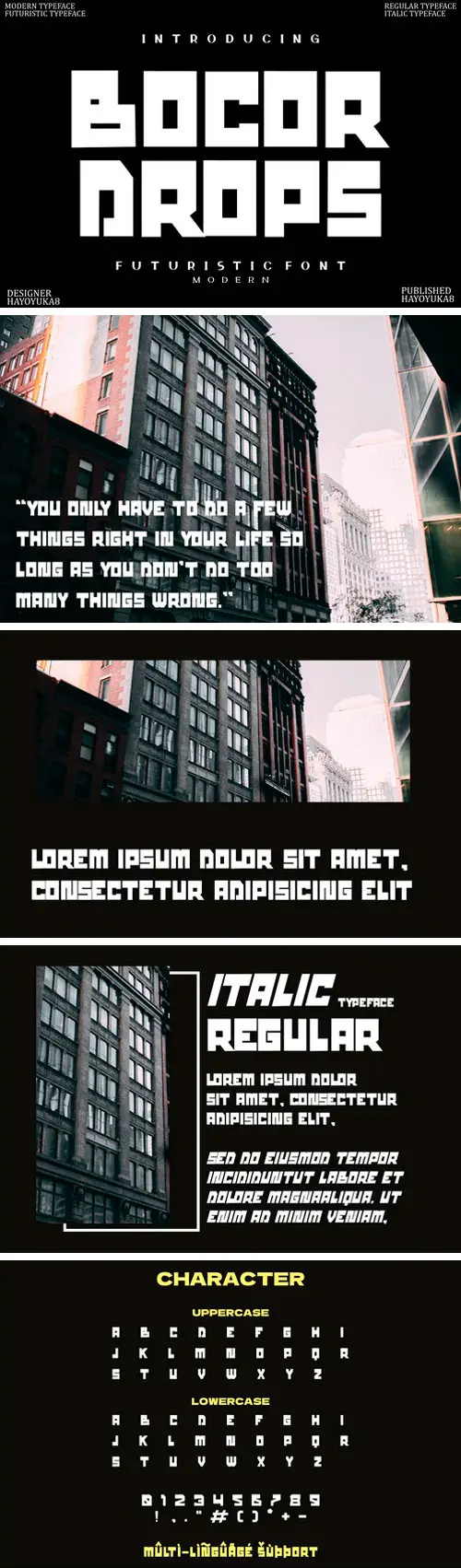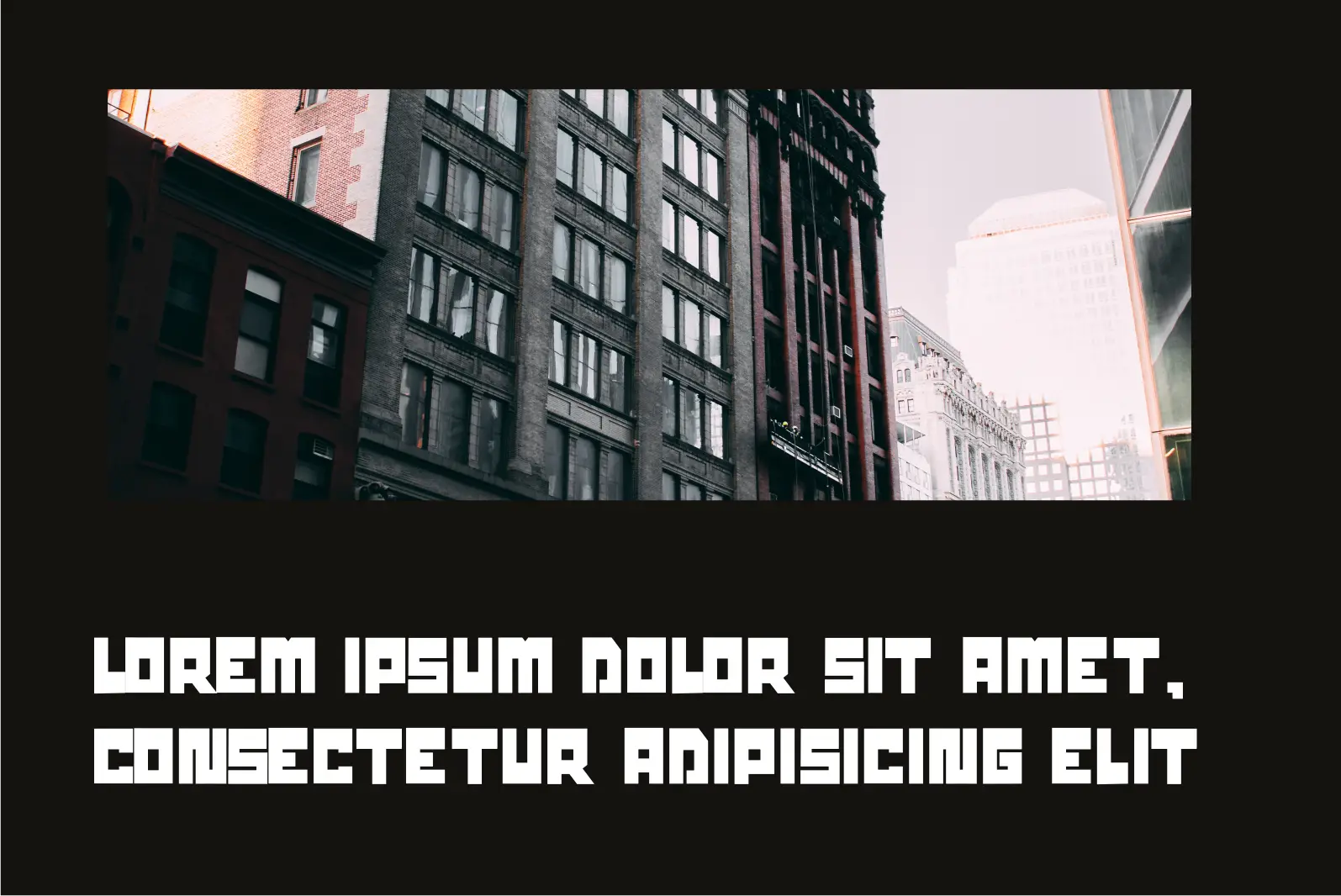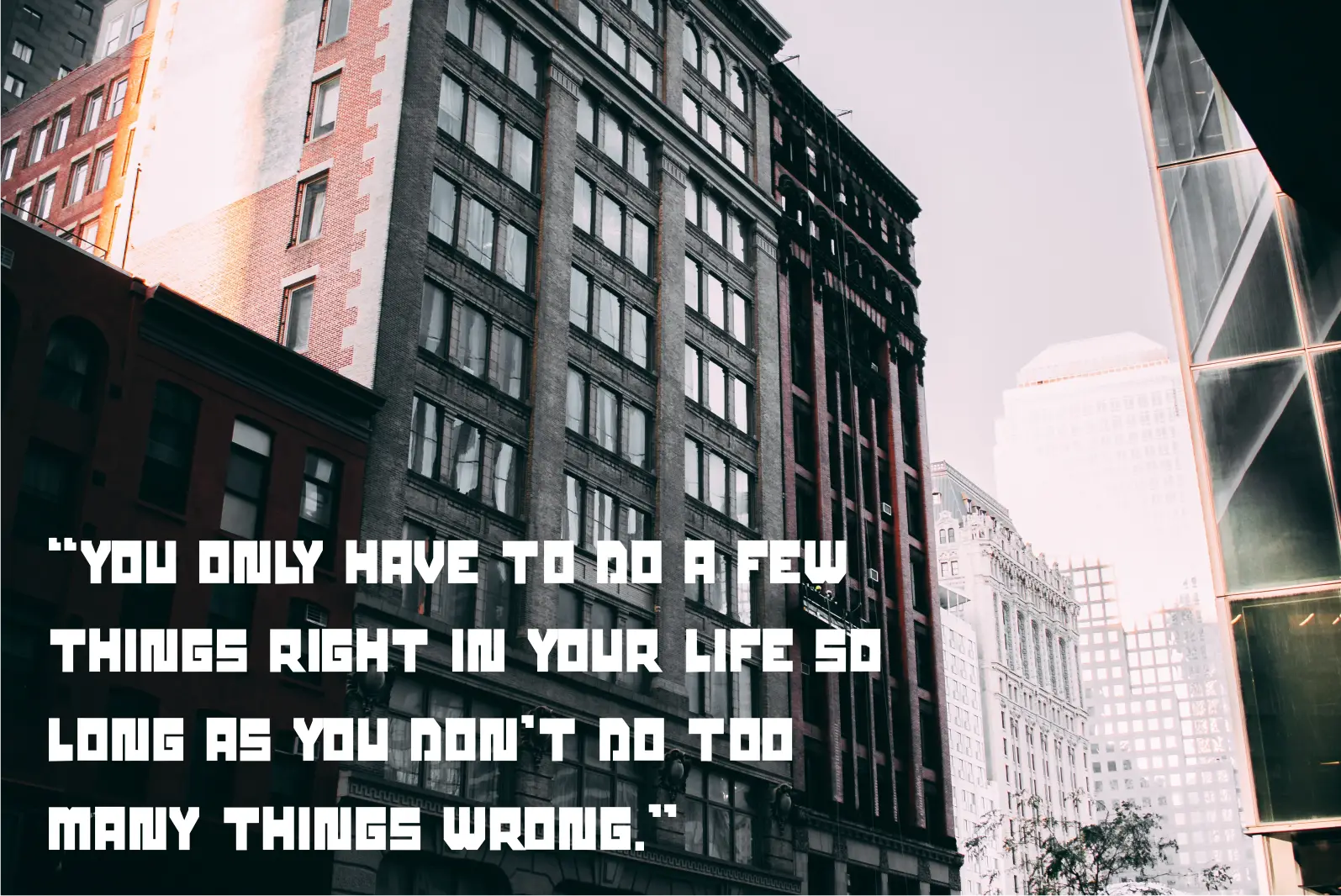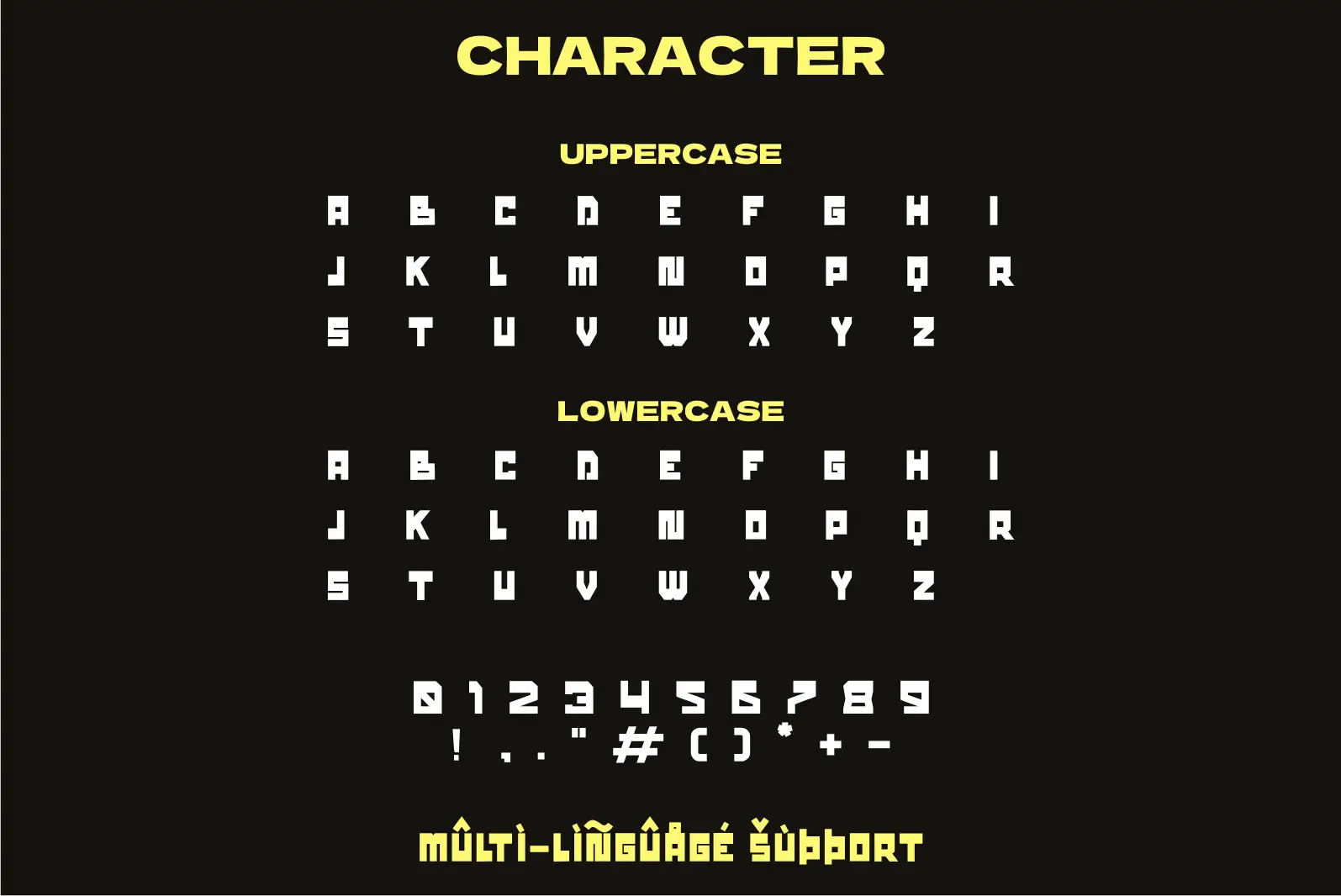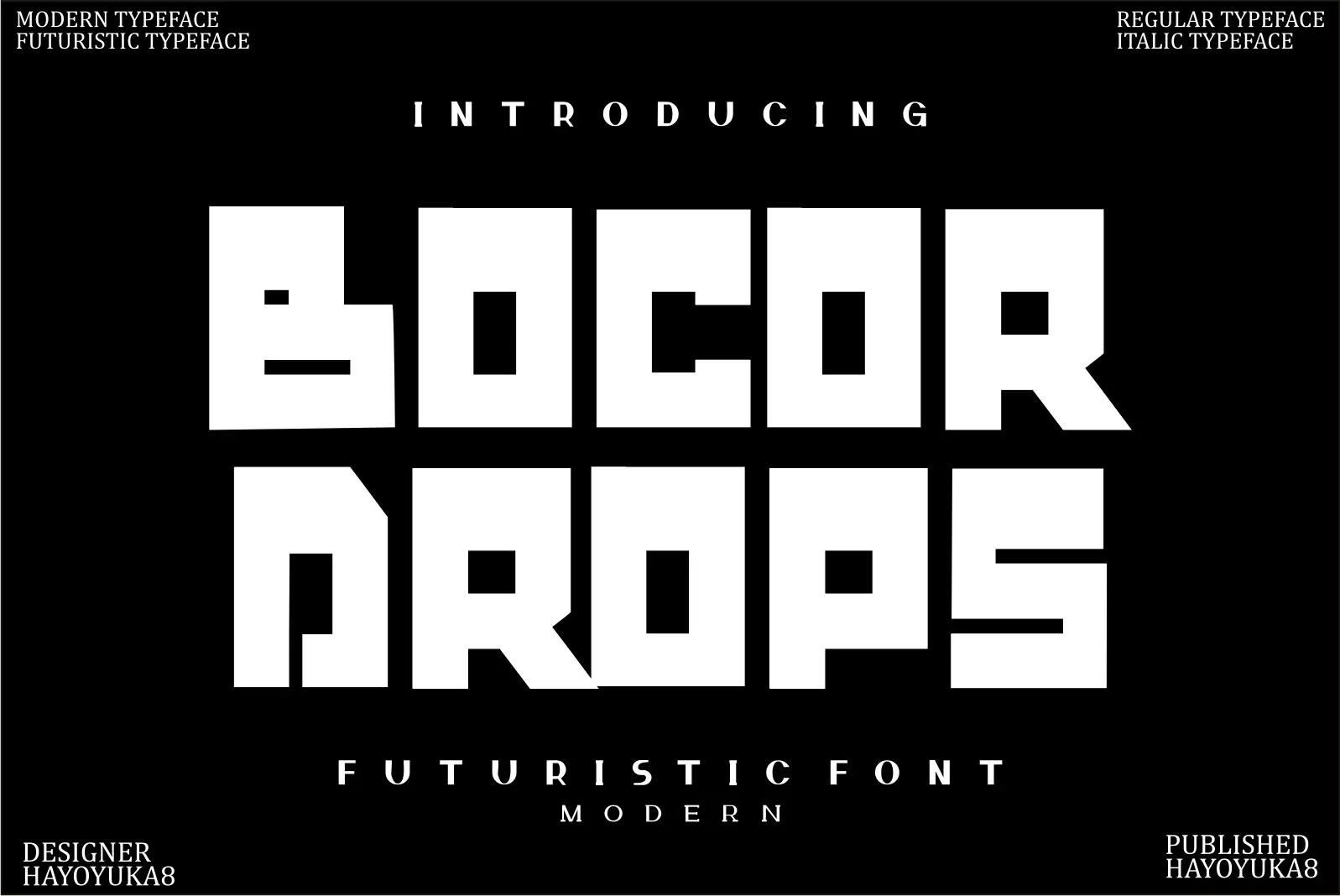
Bocor Drops Display Font
The Bocor Drops Display Font is a unique typeface designed to make a statement in any project. With its bold and playful character, this font is perfect for eye-catching headlines, logos, and branding materials.
• Distinctive display style
• Available in multiple weights for versatility
• Ideal for web and print applications
• Great for branding, posters, and promotional materials
• Use in large sizes for maximum impact
• Combine with complementary fonts for a balanced design